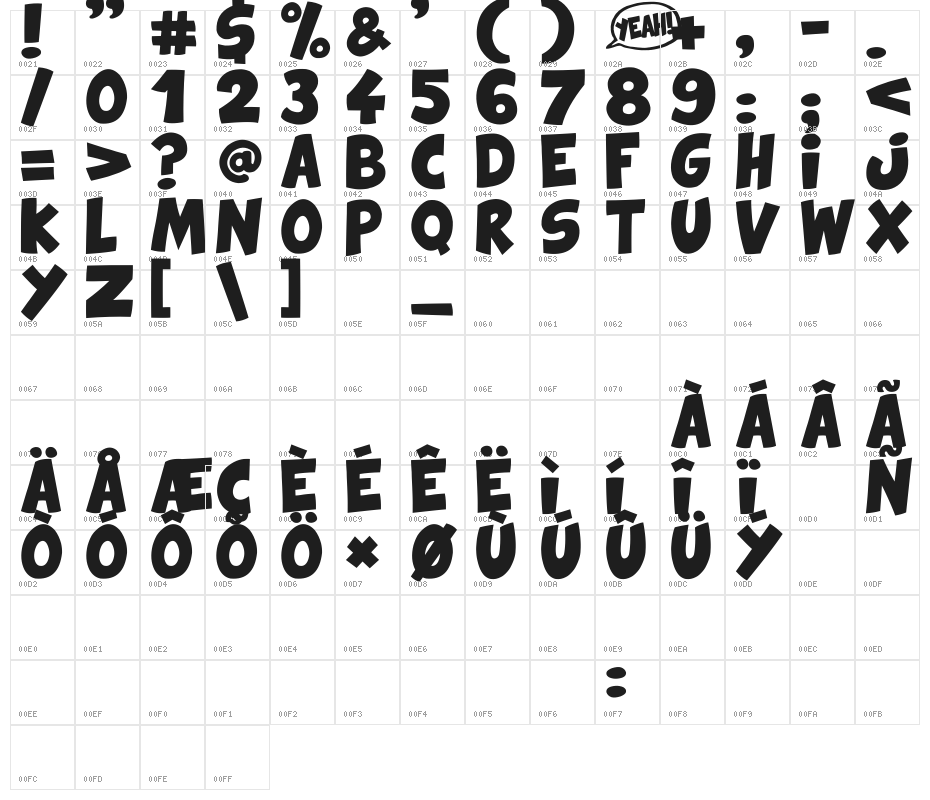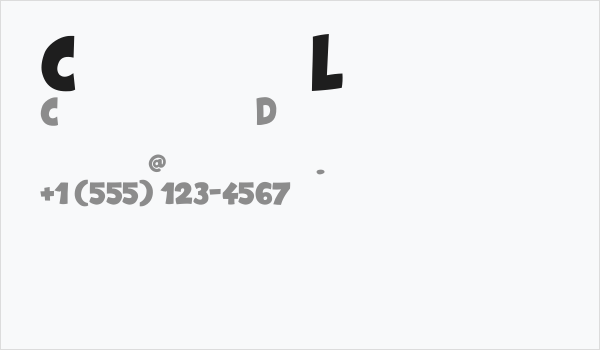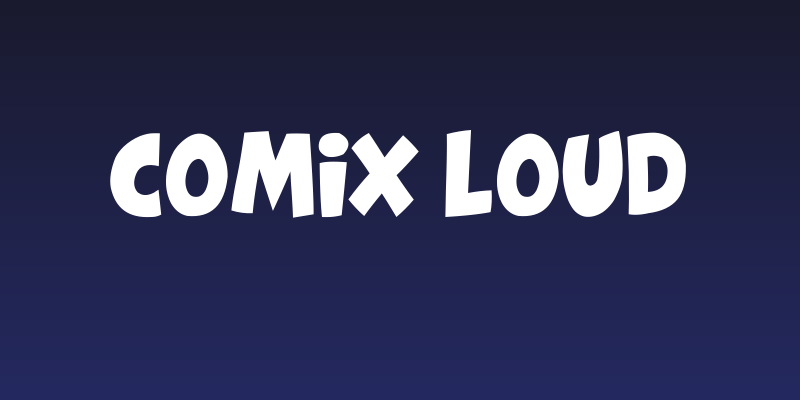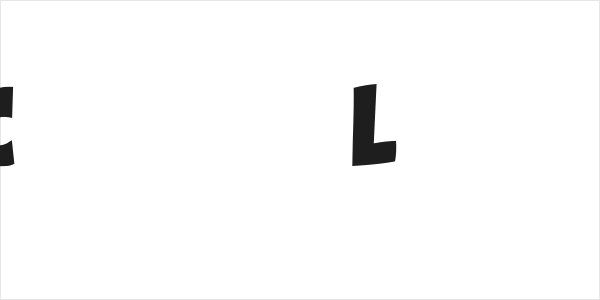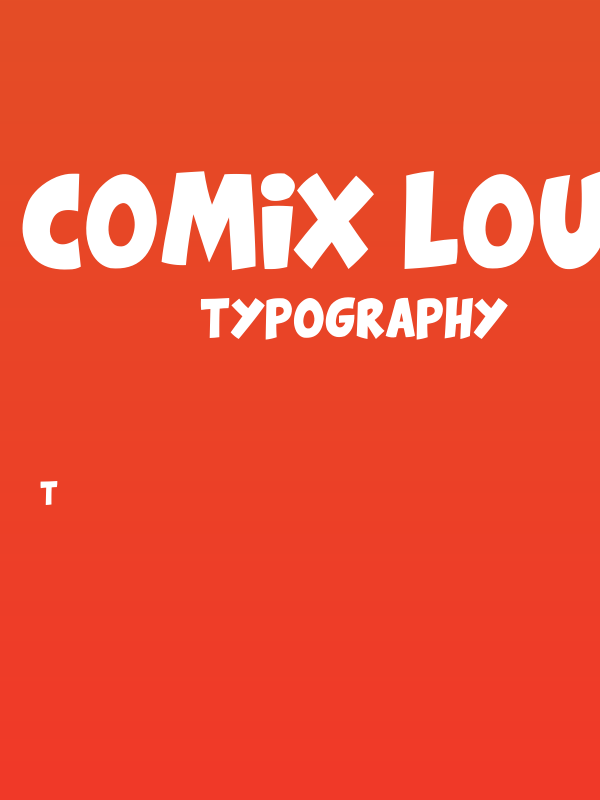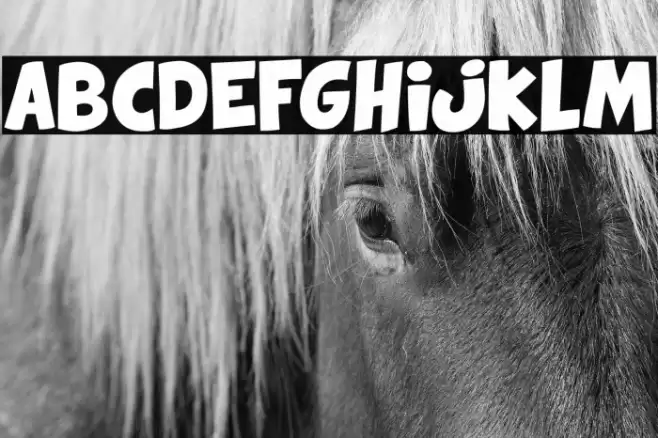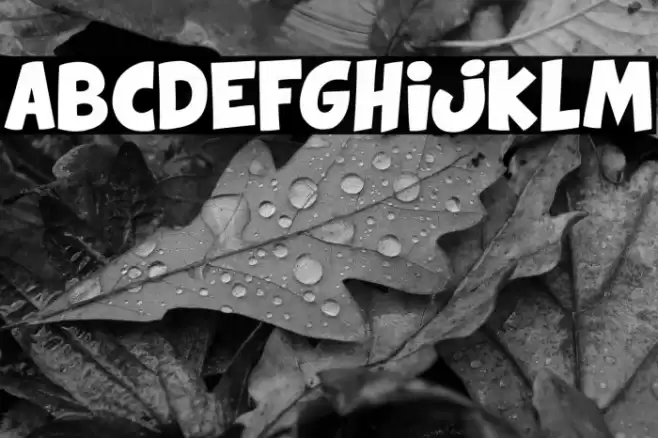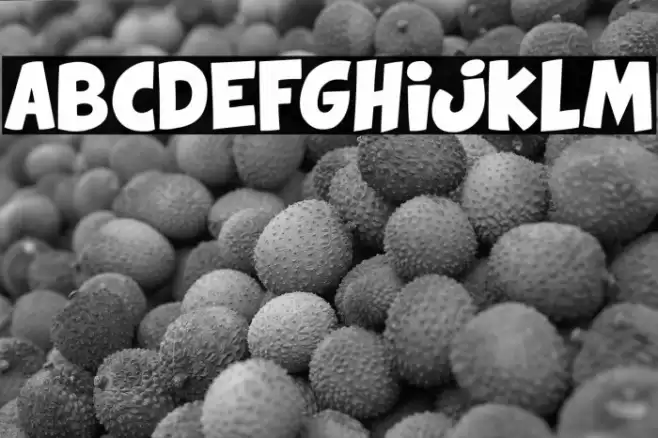
Comix Loud Font
Comix Loud Description
This font exudes a playful and bold comic style, characterized by its thick, exaggerated strokes and whimsical shapes. The letters are designed with a sense of movement and energy, making them appear lively and dynamic. The uppercase and lowercase letters maintain a consistent style, with rounded edges and a slightly irregular form that adds to the casual, hand-drawn aesthetic. The numbers and special characters follow the same design principles, ensuring a cohesive look across all elements. This font is perfect for projects that require a fun and engaging visual impact.
| Overall Style | Playful, Comic |
| Proposed Projects | Ideal for comic books, children's books, playful branding, and eye-catching posters. |